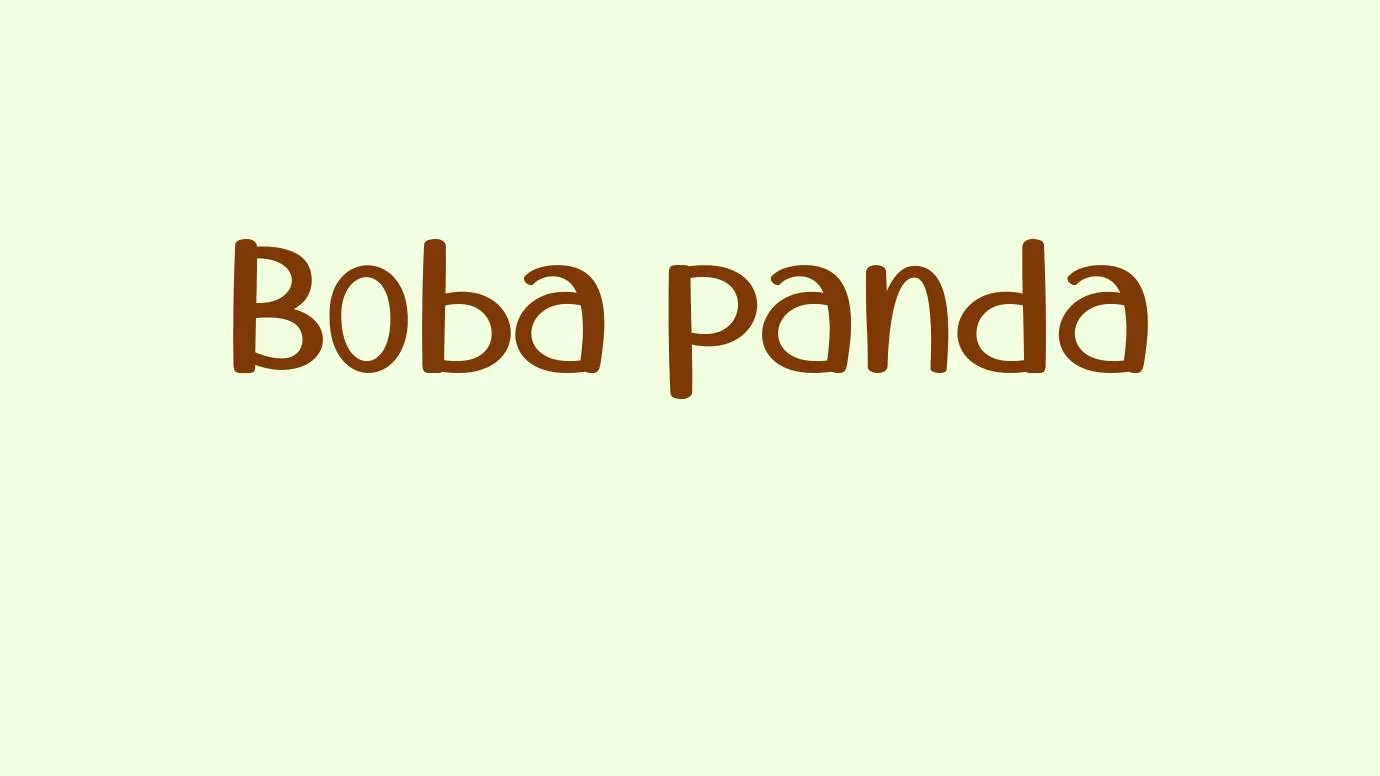
Boba Panda Font Family is a very playful typeface that is used for making cartoons and other kids-related projects. 7NTypes designed it. You can make all types of lovely personal and commercial projects by using this font.
Boba Panda Font Family